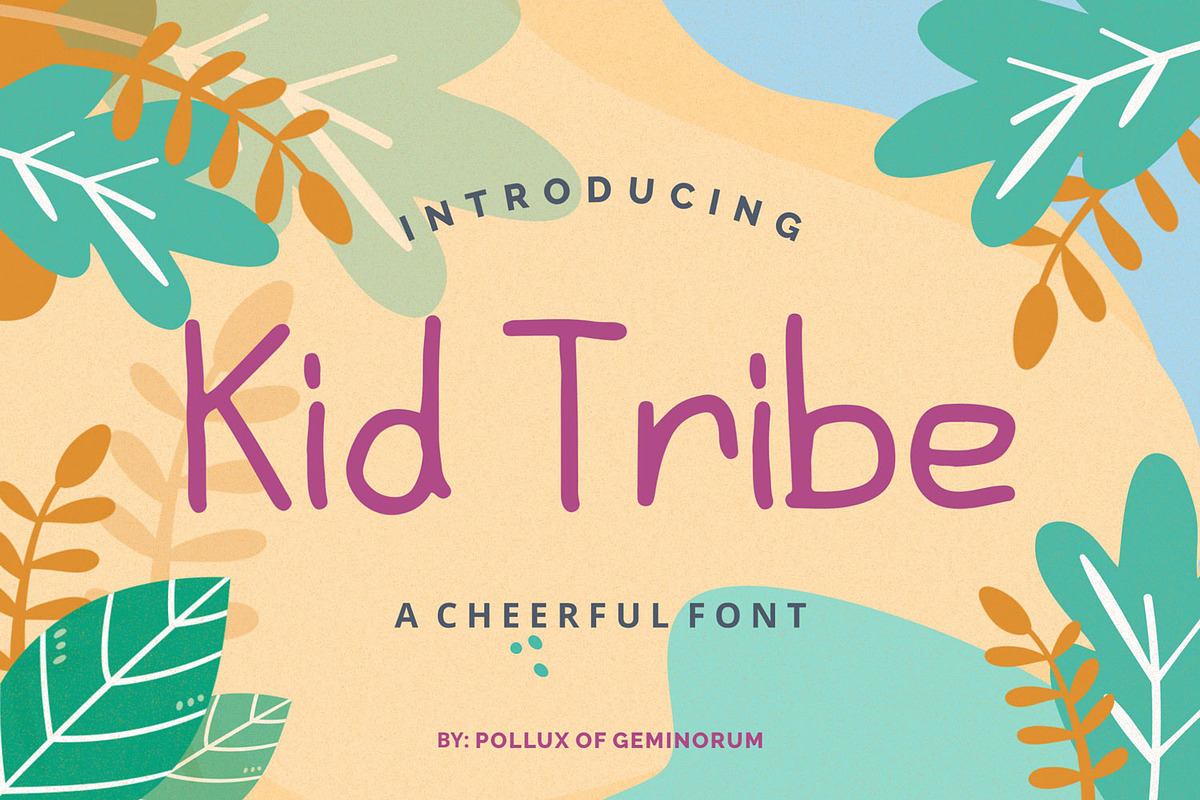
Kid Tribe Font Free Download is a super cute and playful typeface designed to capture the joy and creativity of childhood. With its chunky letters, rounded edges, and fun personality, this font is perfect for kids’ products, birthday invitations, educational materials, toy packaging, and cheerful branding projects.
Its friendly and easy-to-read style makes it ideal for young audiences and family-oriented content. Whether you're creating classroom decor, storybook titles, or colorful crafts, Kid Tribe brings warmth and whimsy to every project. Kid Tribe Font Free Download lets you test its adorable look in personal projects before purchasing a commercial license.
Celebrate imagination and play with Kid Tribe — the cute font that speaks the universal language of fun.